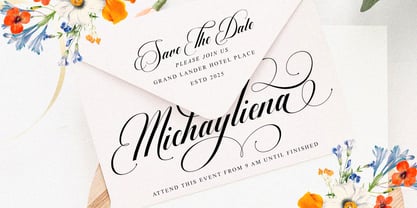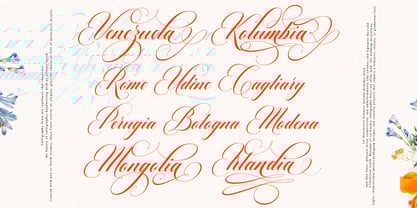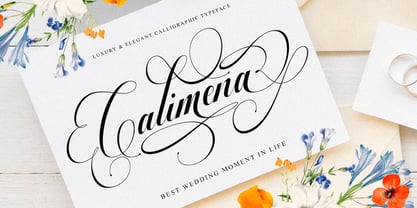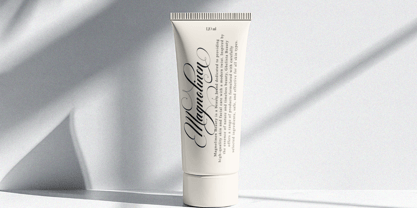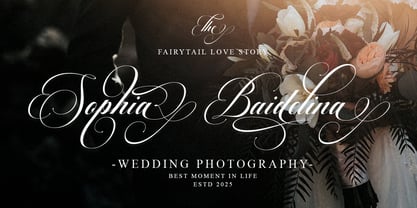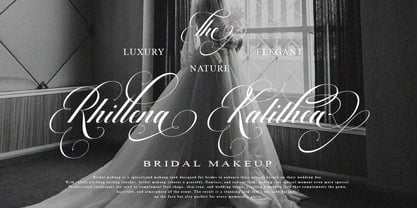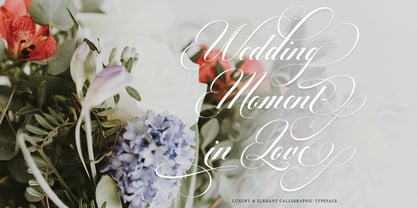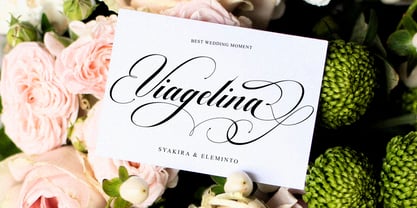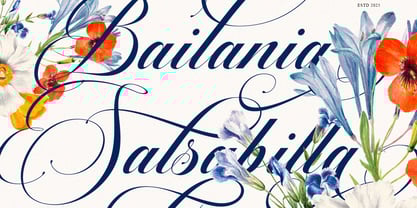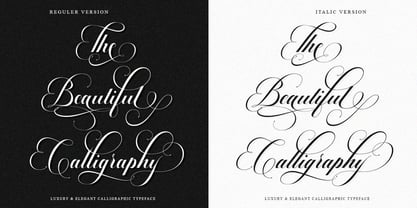
Barlimena Script
by IM Studio
The Barlimena Script Font Family was designed by Ikhsan Maulana and published by IM Studio. Barlimena Script contains 2 styles and family package options.
Barlimena Script Italic & Regular
Barlimena Script is an elegant script typeface that blends the timeless beauty of classic copperplate calligraphy with a modern decorative touch. Designed with meticulous detail, this typeface presents a stylish, graceful, and sophisticated look. Its smooth curves, refined letterforms, and feminine charm make it both glamorous and easy to read, enhanced by a variety of beautiful joins and stylistic alternatives.
Perfect for both formal and creative applications, Barlimena Script is perfect for invitations, logos, fashion branding, makeup and beauty products, restaurant menus, stationery, book or magazine titles, greeting and wedding cards, packaging, labels, and various advertising purposes.